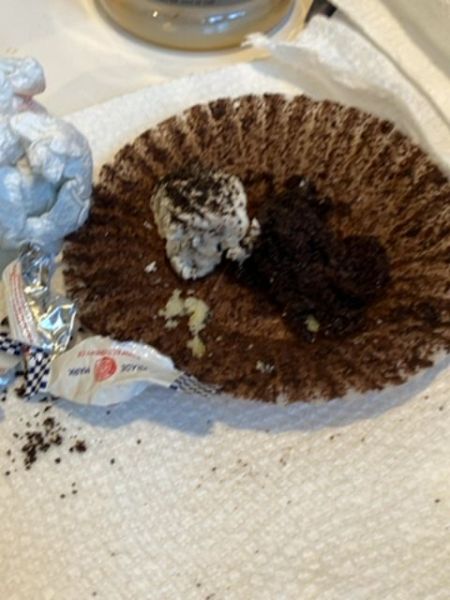
The typography on the packaging seems to feature a clean, sans-serif font, possibly indicating a modern design approach. The lettering appears compact, which might suggest an emphasis on conveying information efficiently. The presence of a logo may include stylized letterforms to enhance brand recognition.
The packaging appears to be a crumpled foil wrapper, possibly from a baked good or confectionery item. It seems to be designed to retain freshness while offering an easy opening experience. The wrapper bears some form of branding or labeling in visible text.
- The product appears to be consumable.
- The wrapper indicates a partially visible logo or emblem.
- The packaging is designed for single-use disposal.